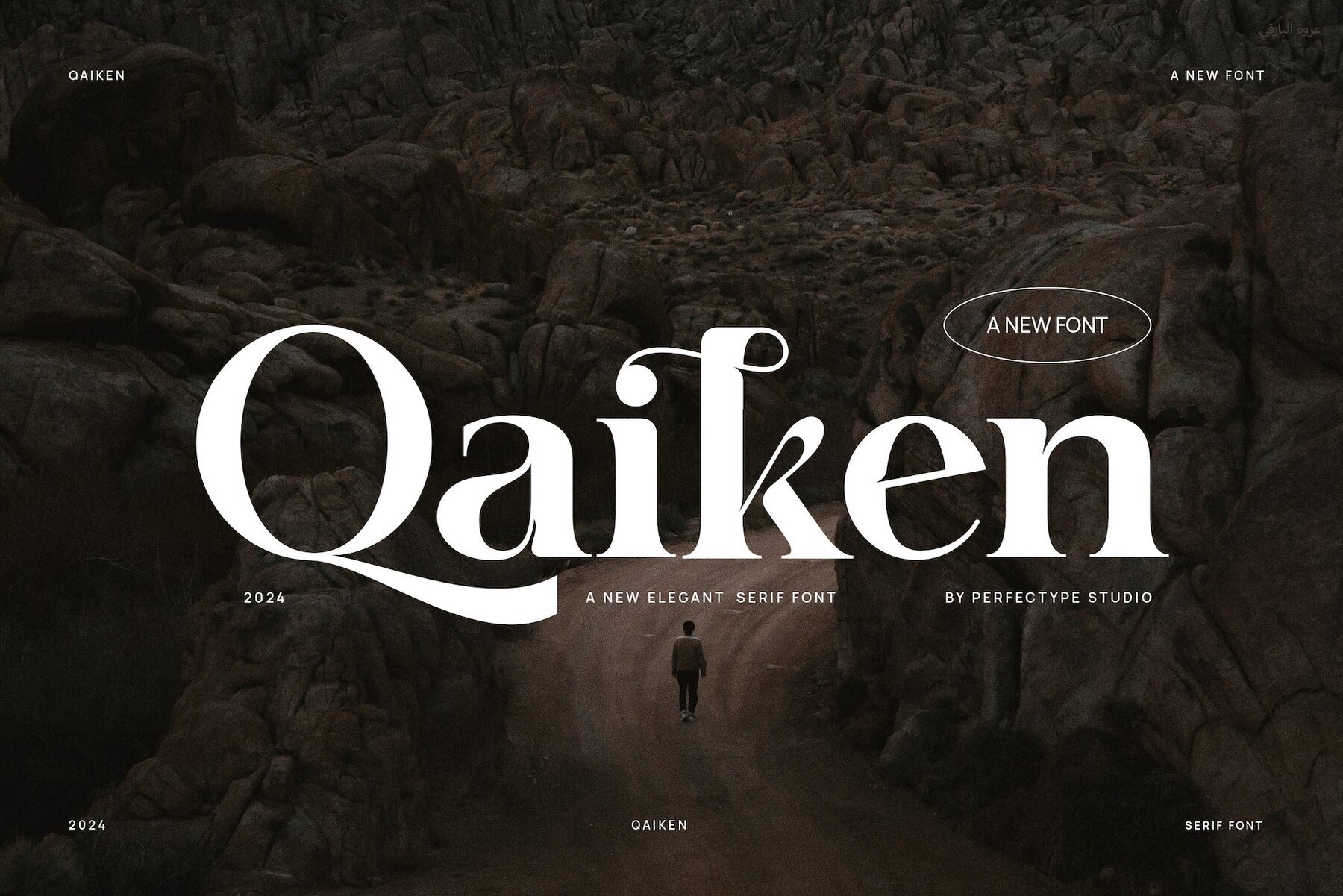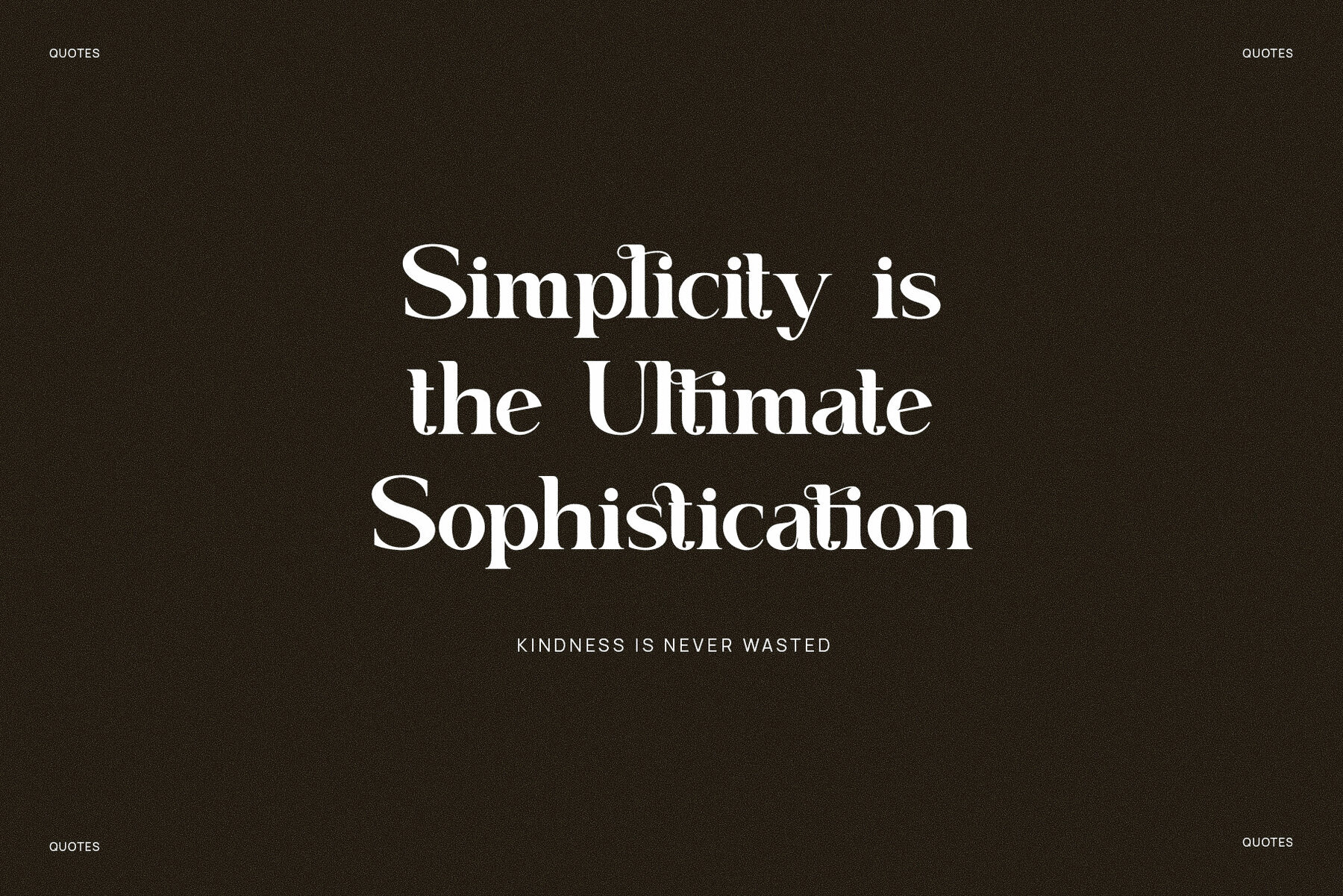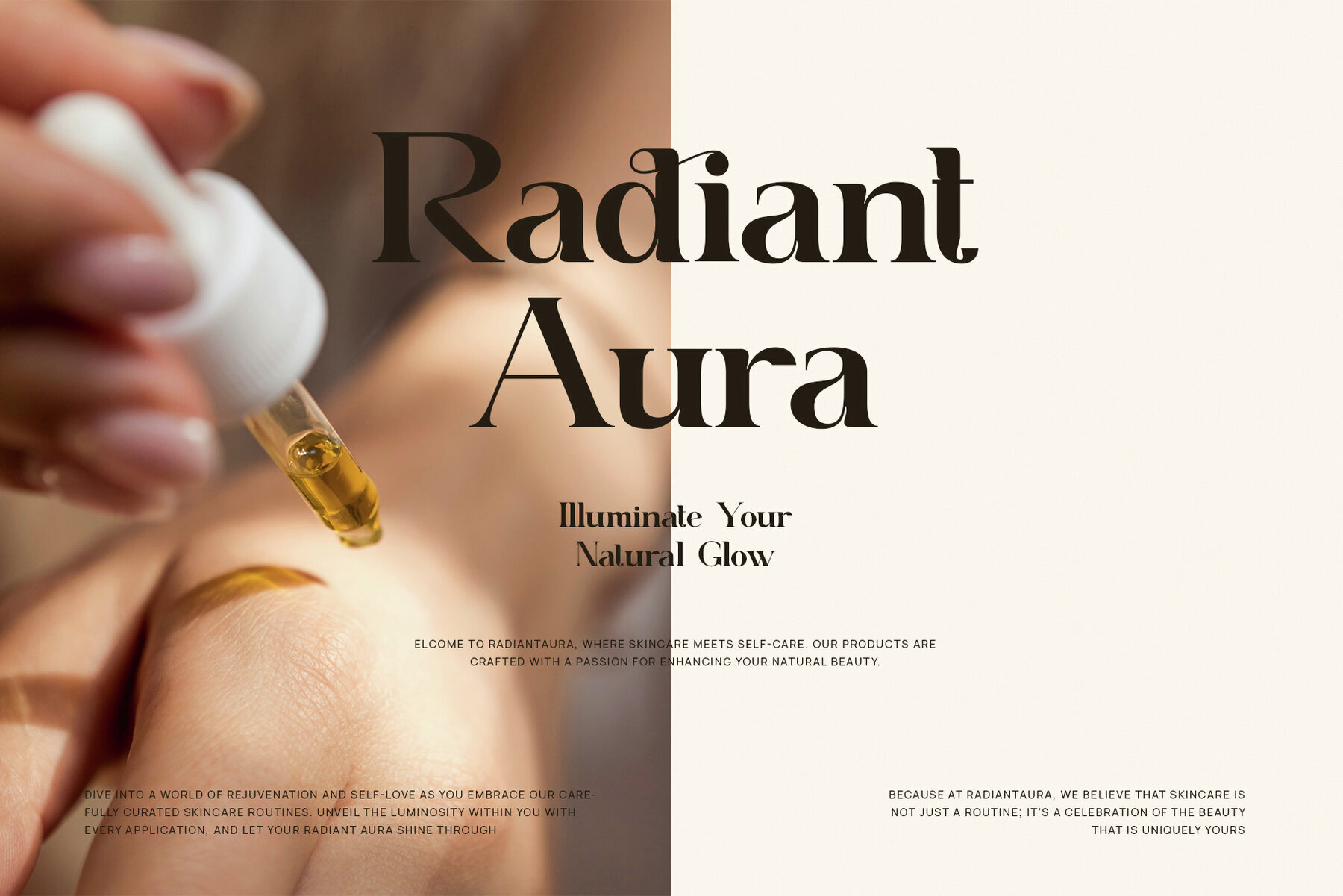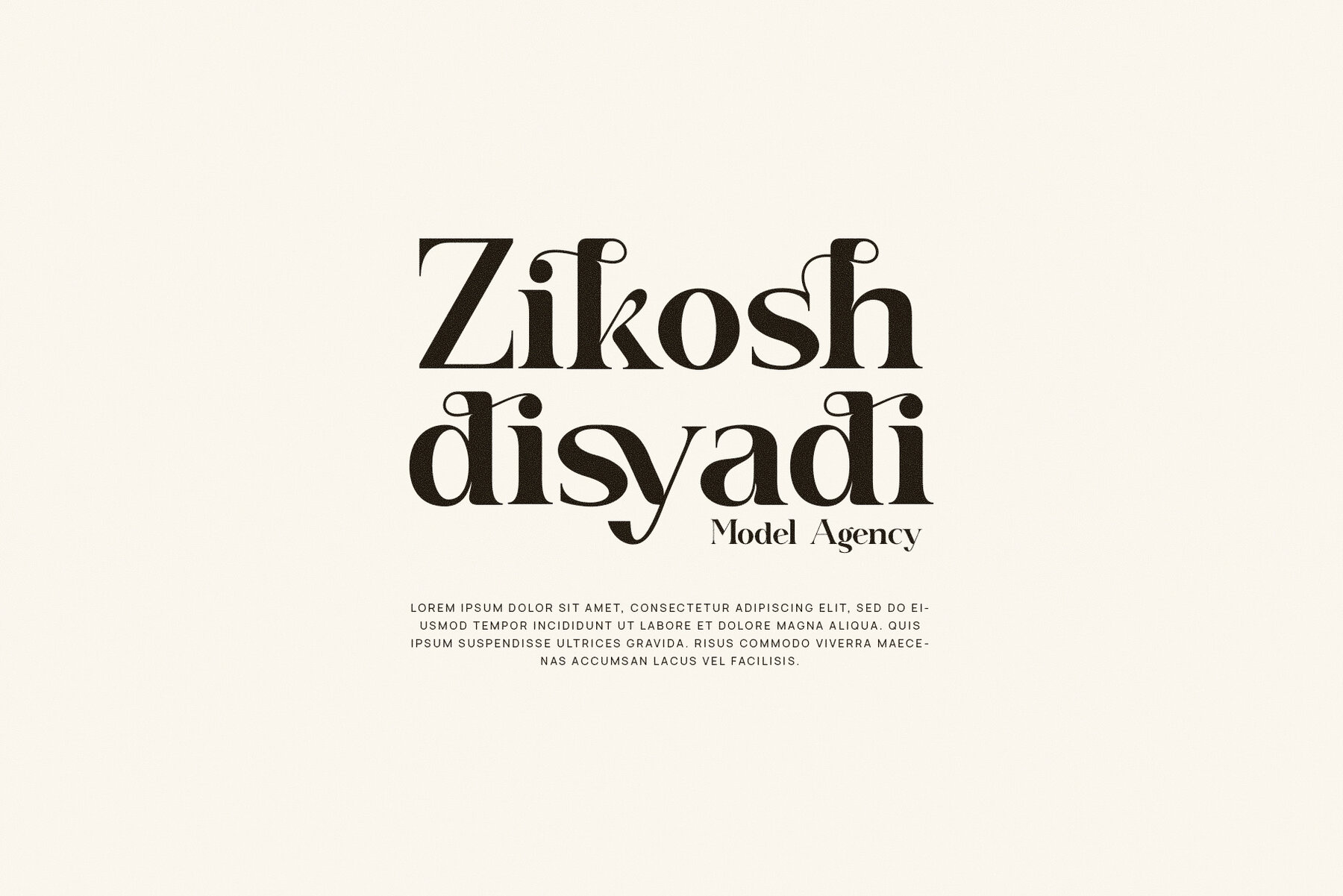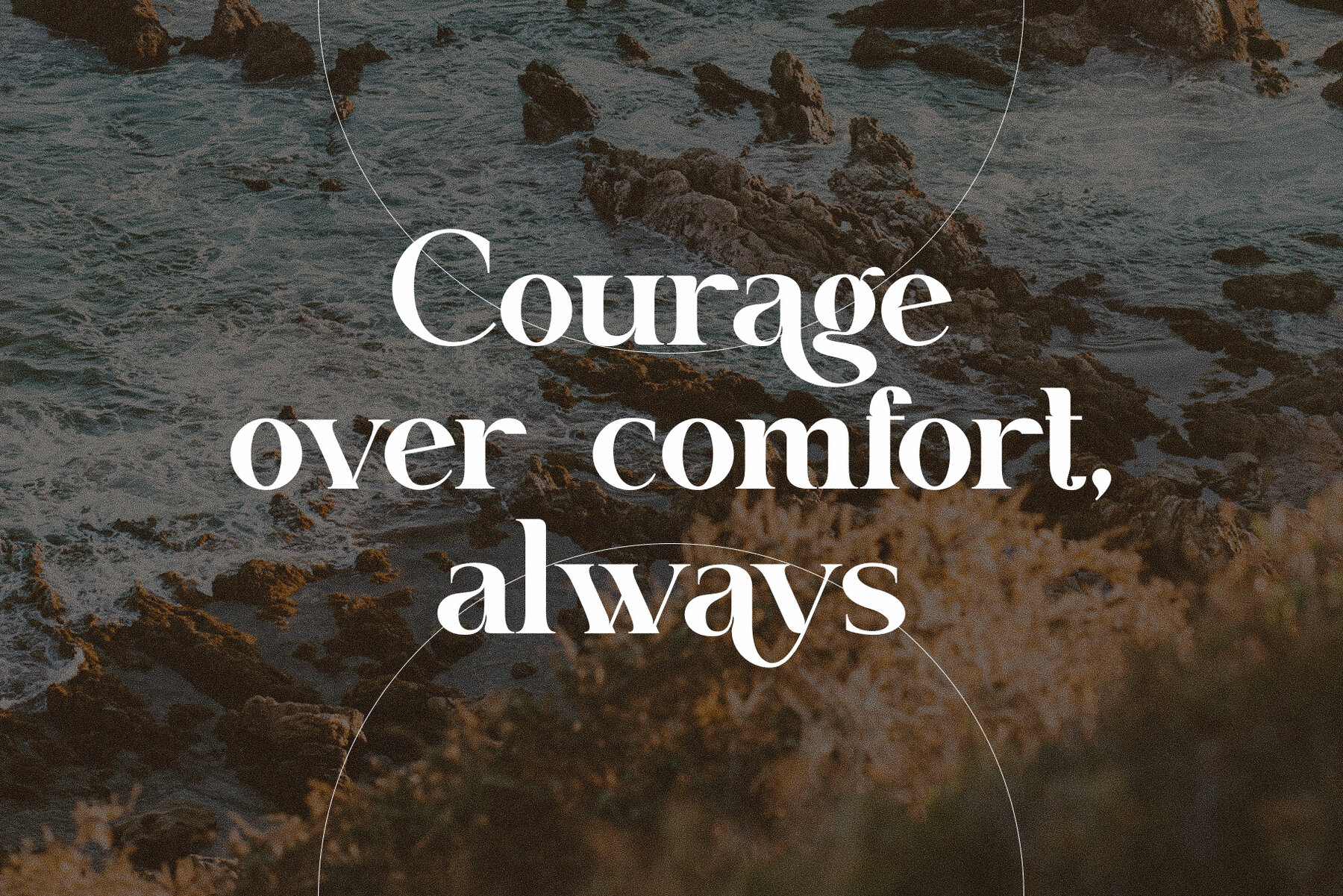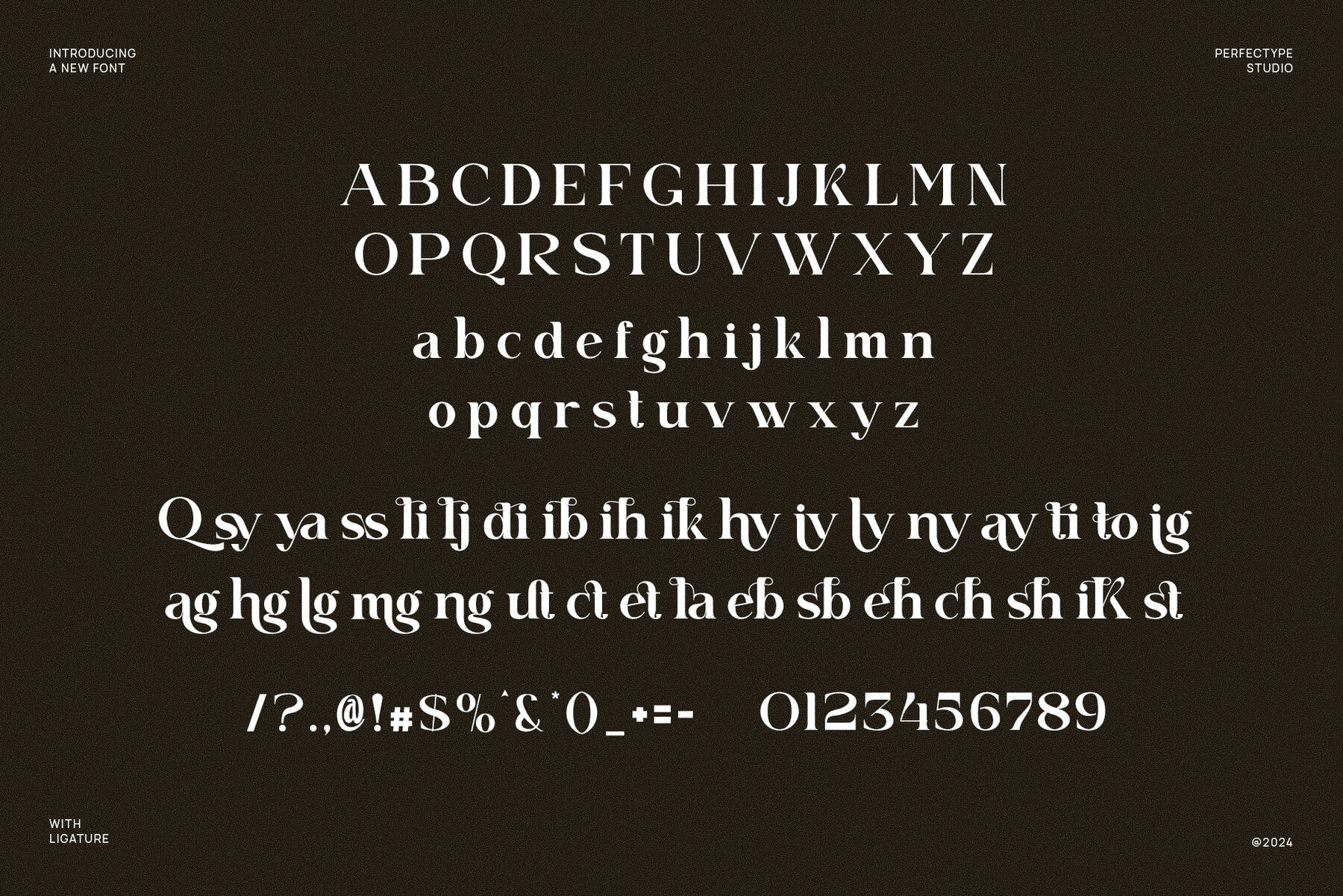
Qaiken Font
Qaiken
Qaiken is an elegant serif font that exudes sophistication and modernity, blending refined design with timeless elegance. With its beautifully structured serifs, unique letterforms, and graceful curves, Qaiken stands out in any project demanding a touch of class. It features meticulously crafted ligatures and alternate characters, providing designers the flexibility to create customized typography that adds a unique, personalized touch. Ideal for high-end branding, Qaiken excels in applications such as logos, visual identities, and premium product designs. This font's elegant aesthetic is perfectly suited for luxury websites and polished magazine layouts.
Qaiken's versatility makes it apt for various industries, including fashion, food, boutique branding, and lifestyle. Its modern appeal and refined character ensure it remains timeless, adaptable to both print and digital media. Whether used in product packaging, editorial content, or website typography, Qaiken delivers the elegance and professionalism needed to leave a lasting impression. With its impressive ligatures and alternate features, this serif font serves as an essential tool for designers aiming to create sophisticated, memorable designs, reinforcing its status as the perfect choice for upscale branding and creative projects.